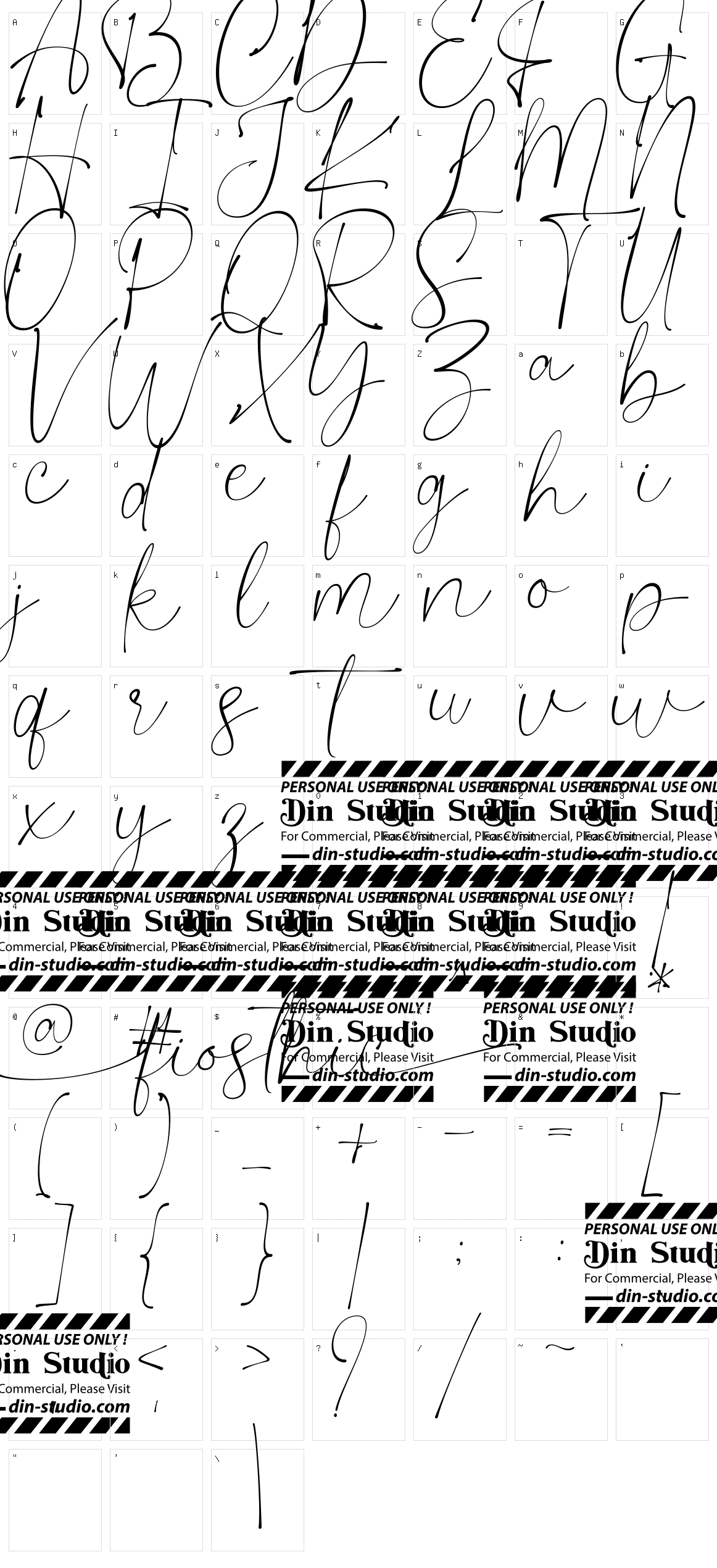
The free font Fiosthic is carefully designed by Din Studio, showcasing a thoughtful balance of creativity and usability and falls under the Script font style. When you download the ZIP file, it contains only 310.55 KB of font files, making it lightweight and quick to download. Please review the license details below to understand permitted usage and distribution rights. If license information is not available, we recommend using this font for personal projects only or contacting the author directly for commercial usage permissions.